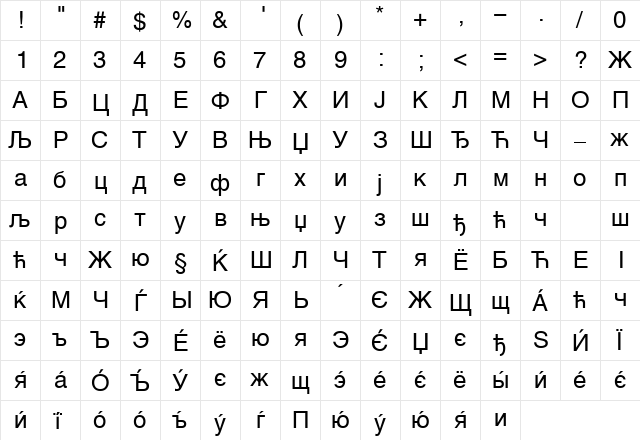
Cir Helv Plain New Regular
Design Context for Cir Helv Plain New Typeface
Cir Helv Plain New is a composed and adaptable typeface that performs quietly and consistently across a wide range of design contexts.